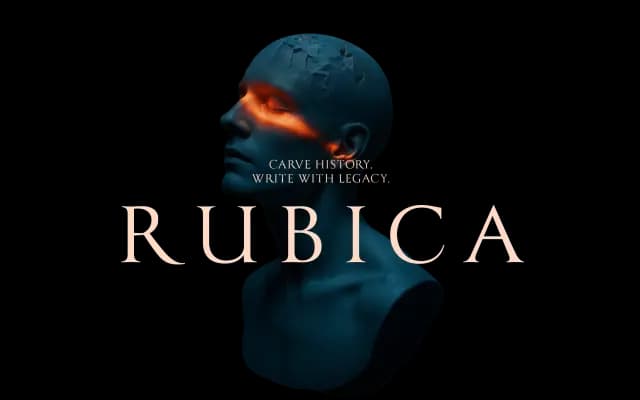
A four-weight geometric sans from Patio Foundry, running from Thin through to Bold.
Rubica offers four weights spanning Thin, Light, Regular and Bold, covering the most common range for editorial and branding work. The foundry page provides limited detail beyond the weight range, suggesting a restrained, purpose-built family rather than an expansive superfamily. Suited to clean, minimal design contexts where a straightforward sans is needed without excess variation.
The naming conventions and preview weights suggest a clean, geometric or humanist sans-serif family; without further classification detail from the page, a geometric sans is the most plausible subcategory given the minimal naming and contemporary foundry context.